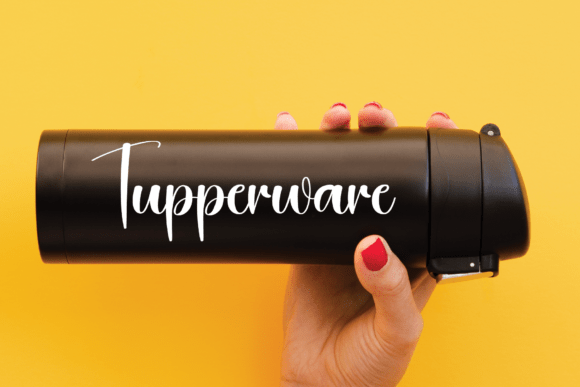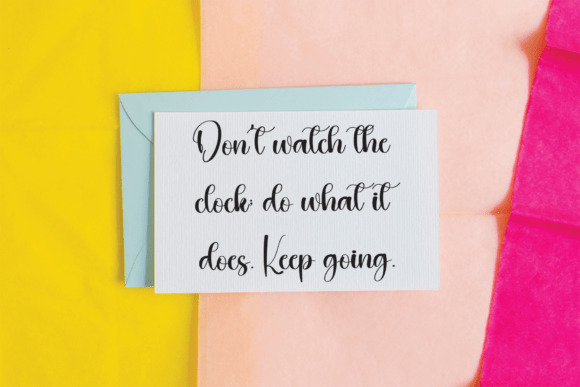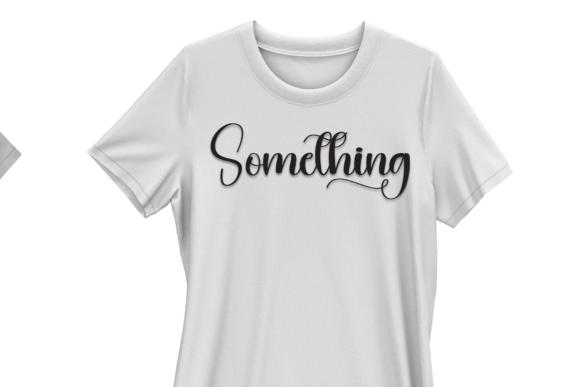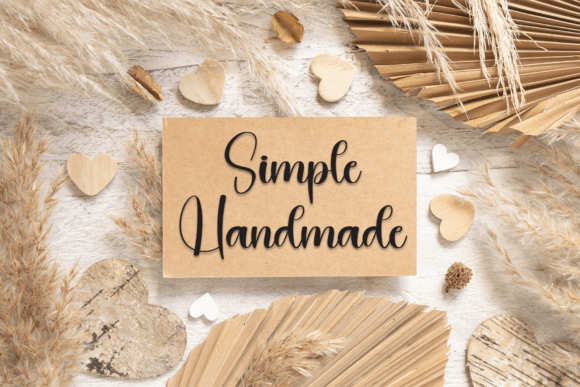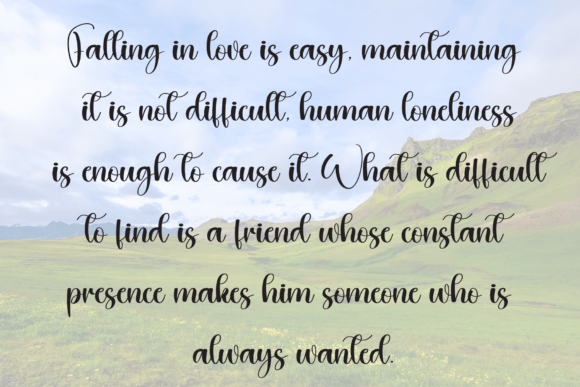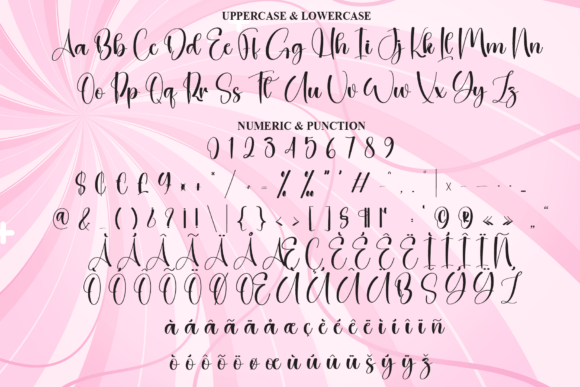
Introduction to Pinky Slinky Font
Have you ever been working on a creative project, and you just can’t seem to find the perfect font to match your vision? You’ve scoured through countless design resources, but nothing seems to capture the essence of your idea. That’s where Pinky Slinky Font comes in – a game-changing script font that’s about to revolutionize the way you approach your design projects.
With its elegant and expressive curves, Pinky Slinky Font is the perfect addition to any high-quality design. Whether you’re working on a wedding invitation, a logo, or social media graphics, this font brings a timeless charm that’s sure to impress. And the best part? It’s a free download, making it an accessible design resource for designers of all levels.
Key Features of Pinky Slinky Font
- High-quality design resource ideal for creative projects, offering a unique and playful aesthetic.
- Features a transparent background, making it easy to overlay on images or use as a design element in creative projects.
- Designed with a high-resolution output in mind, ensuring crisp and clear typography in various sizes and resolutions.
- Unique characteristics include its whimsical, hand-drawn style and expressive letterforms, perfect for adding a touch of personality to designs.
- Supports a wide range of languages, making it a versatile design resource for international projects and clients.
Honest Review: Pinky Slinky Font
I recently had the chance to work with the Pinky Slinky Font, and I must say it’s been a game-changer for my creative project. The font is perfect for adding a touch of whimsy and fun to any design. I particularly love the fact that it comes with a transparent background, which makes it super easy to use in any design scenario.
One of the things that works really well about this font is its versatility. It’s suitable for a wide range of creative projects, from children’s books to advertising campaigns. The high-quality design ensures that it looks great in print and digital formats.
- Perfect for creative projects that require a touch of fun and whimsy
- High-quality design that looks great in print and digital formats
- Transparent background makes it easy to use in any design scenario
One of the limitations of the Pinky Slinky Font is that it’s not ideal for formal or professional designs. The font’s playful nature may not be suitable for projects that require a more serious tone.
Overall, I’m really impressed with the Pinky Slinky Font. It’s a great addition to any designer’s toolkit, and I highly recommend it for any creative project that requires a touch of fun and whimsy.
Tips for Getting the Most Out of Pinky Slinky Font
To get the most out of the Pinky Slinky Font, use it with a transparent background to create a unique and eye-catching design. You can also experiment with different font sizes and styles to add visual interest to your project.
The Pinky Slinky Font is perfect for use in creative projects such as logos, business cards, and social media graphics. It’s also a great choice for designers who want a high-quality, free download font that can be used in a variety of design applications.
Does the Pinky Slinky Font have a transparent background?
No, the Pinky Slinky Font is a solid font and does not have a transparent background. However, you can use it in conjunction with other design elements that have a transparent background to create a seamless and cohesive look.